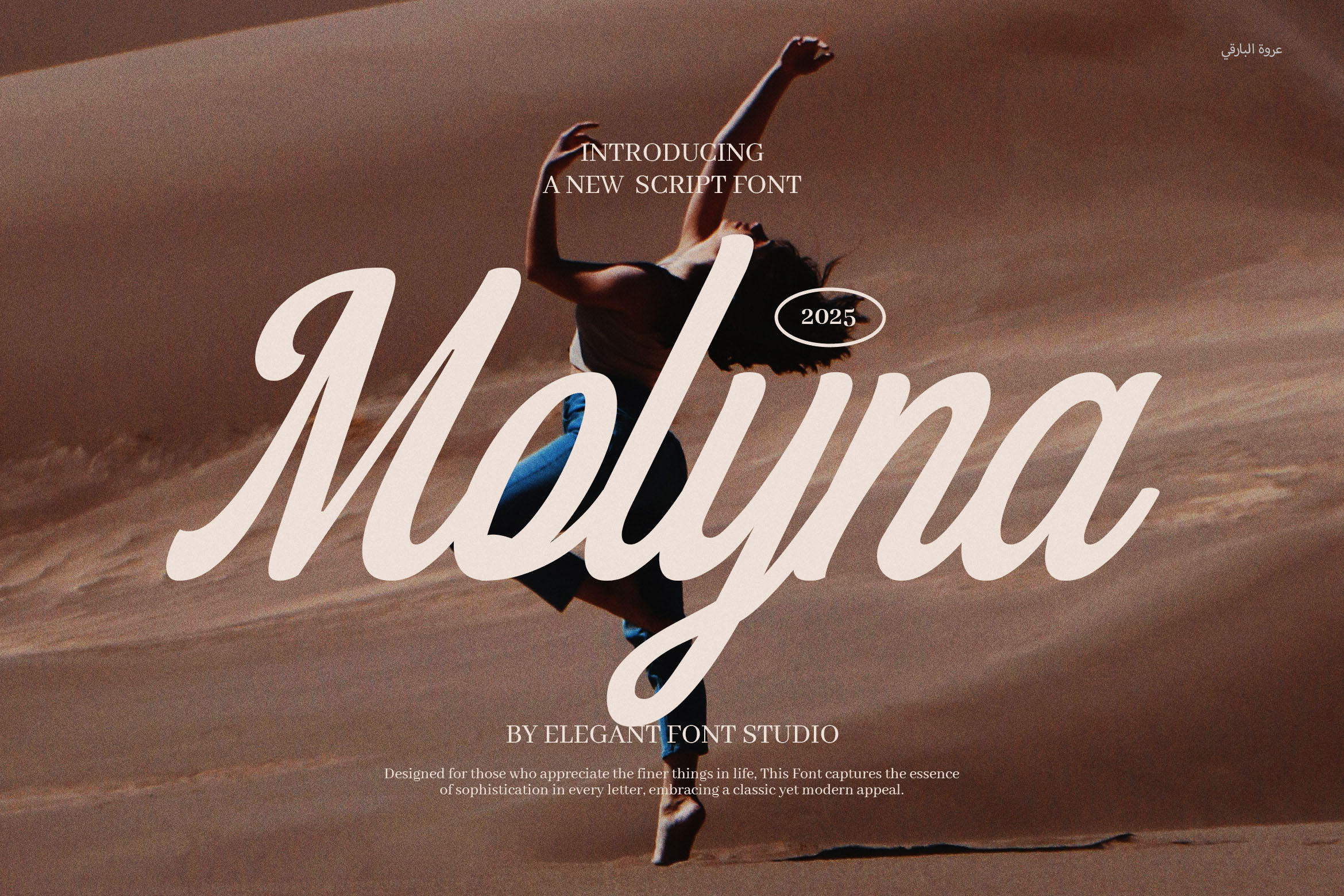
Molyna Modern Script Font
Molyna Modern Script Font is a refined and elegant script font that brings a perfect touch of luxury to any design. With its flowing curves, beautiful strokes, and smooth ligatures, this font is ideal for anyone seeking a modern and stylish script typeface. Designed with calligraphy influences, Molyna offers a balance between grace and sophistication.
This font is ideal for use in high-end branding, romantic wedding invitations, fashion logos, product packaging, website headers, music covers, and much more. Its alternates and ligatures give you countless design possibilities, making each piece look custom-made and polished.
Crafted with attention to detail, Molyna fits beautifully in digital and print designs. It’s perfect for graphic designers, creative agencies, marketers, and even large companies looking for fonts that communicate elegance and professionalism. Whether you’re working on a luxury brand or an elegant personal project, Molyna elevates every layout with class.
✨ Font Highlights:
Modern script with smooth calligraphy style
Dozens of ligatures and alternates for a custom look
Perfect for logos, invitations, branding, magazines, packaging, and more
Beautiful, flowing letterforms for upscale visual impact
Ideal for print, digital media, advertising, and websites
If you're seeking a modern script font that combines elegance, versatility, and a handcrafted feel, Molyna is the perfect choice.